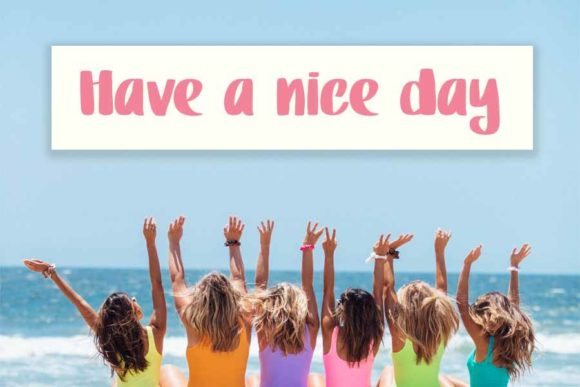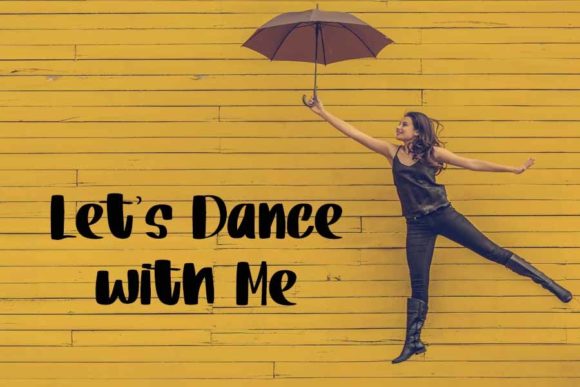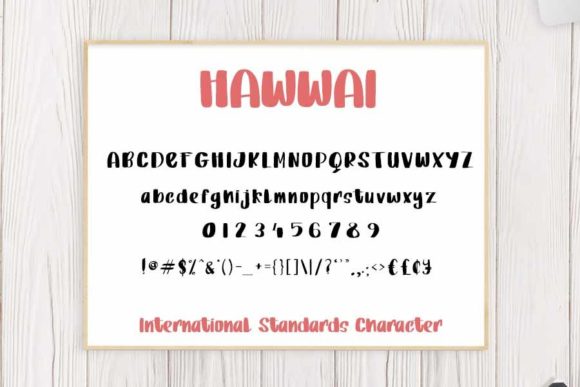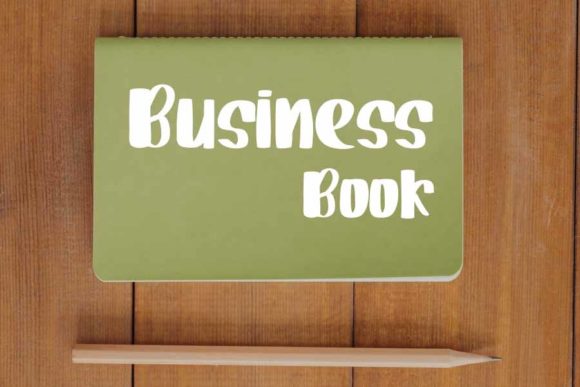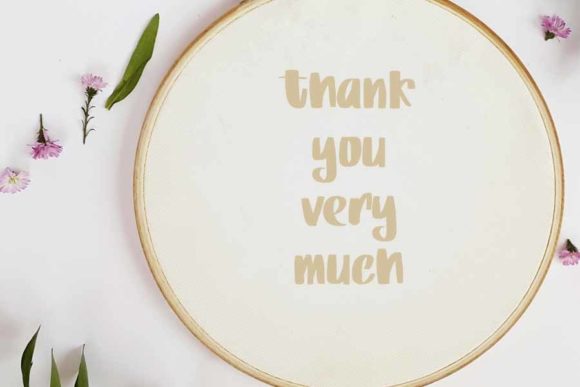
Hawwai Font: Elevate Your Creative Projects with a Neat and Simple Handwritten Style
Are you a designer, crafter, or DIY enthusiast looking for a font that can add a personal touch to your creative projects? Look no further than the Hawwai Font, a beautiful and versatile handwritten font that’s perfect for a wide range of applications. In this article, we’ll explore the features and benefits of the Hawwai Font, and show you how it can help you turn your creative ideas into stunning works of art.
What is Hawwai Font?
Hawwai Font is a neat and simple handwritten font that’s designed to bring a touch of elegance and sophistication to your creative projects. With its clean lines, subtle curves, and flowing script, Hawwai Font is perfect for anyone looking for a font that’s both stylish and easy to read. Whether you’re working on a DIY project, designing a logo or branding materials, or simply looking for a font to use on your Instagram feed, Hawwai Font is an excellent choice.
Key Features of Hawwai Font
So what makes Hawwai Font so special? Here are just a few of its key features:
- Neat and simple design: Hawwai Font has a clean and uncluttered design that’s easy on the eyes. Its simple lines and curves make it perfect for use in a wide range of applications, from body text to headings and titles.
- Handwritten style: Hawwai Font has a warm and personal feel that’s perfect for adding a touch of personality to your creative projects. Its handwritten style makes it ideal for use in DIY projects, crafts, and other handmade applications.
- Highly versatile: Hawwai Font is an extremely versatile font that can be used in a wide range of applications, from digital media to print materials. It’s perfect for use in books, magazines, brochures, and other publications, as well as for designing logos, branding materials, and other visual elements.
Uses for Hawwai Font
So what can you use Hawwai Font for? The possibilities are endless! Here are just a few ideas to get you started:
- Instagram and social media: Hawwai Font is perfect for use on Instagram and other social media platforms. Its clean and simple design makes it easy to read, even on small screens, and its handwritten style adds a personal touch to your posts and stories.
- DIY projects and crafts: Hawwai Font is a great choice for DIY projects and crafts, such as handmade cards, gift tags, and other paper crafts. Its handwritten style adds a personal touch to your creations, and its simplicity makes it easy to use in a wide range of applications.
- Book and magazine design: Hawwai Font is also perfect for use in book and magazine design. Its clean lines and simple curves make it easy to read, even in large blocks of text, and its handwritten style adds a touch of elegance and sophistication to your designs.
Tips for Using Hawwai Font
Here are a few tips for getting the most out of Hawwai Font:
- Use it sparingly: Hawwai Font is a beautiful font, but it can be overwhelming if used too much. Try using it sparingly, such as for headings or titles, to add a touch of elegance and sophistication to your designs.
- Experiment with different colors: Hawwai Font looks great in a wide range of colors, from bold and bright to soft and pastel. Experiment with different colors to find the one that works best for your project.
- Pair it with other fonts: Hawwai Font can be paired with a wide range of other fonts to create a unique and interesting look. Try pairing it with a bold sans-serif font for a striking contrast, or with a script font for a more elegant look.
In conclusion, Hawwai Font is a beautiful and versatile handwritten font that’s perfect for designers, crafters, and DIY enthusiasts. Its neat and simple design, handwritten style, and high versatility make it an excellent choice for a wide range of applications, from digital media to print materials. Whether you’re looking for a font to use on Instagram, in a book or magazine, or for a DIY project, Hawwai Font is an excellent choice. So why not give it a try and see how it can help you turn your creative ideas into stunning works of art?